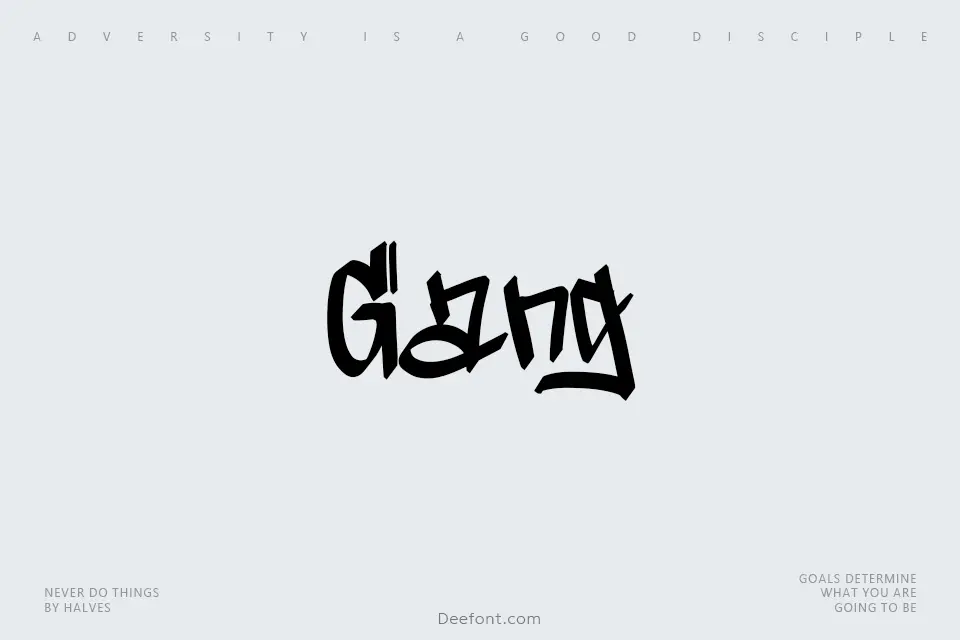
Gang Font
Gang is an expressive graffiti-style script display font featuring bold, angular strokes with dynamic character. Designed for creative projects requiring urban energy, this typeface excels in logos, headlines, posters, and branding applications. With its distinctive hand-drawn aesthetic and contemporary flair, Gang brings authentic street art sensibility to typography, making it ideal for music events, streetwear branding, and eye-catching visual communications.